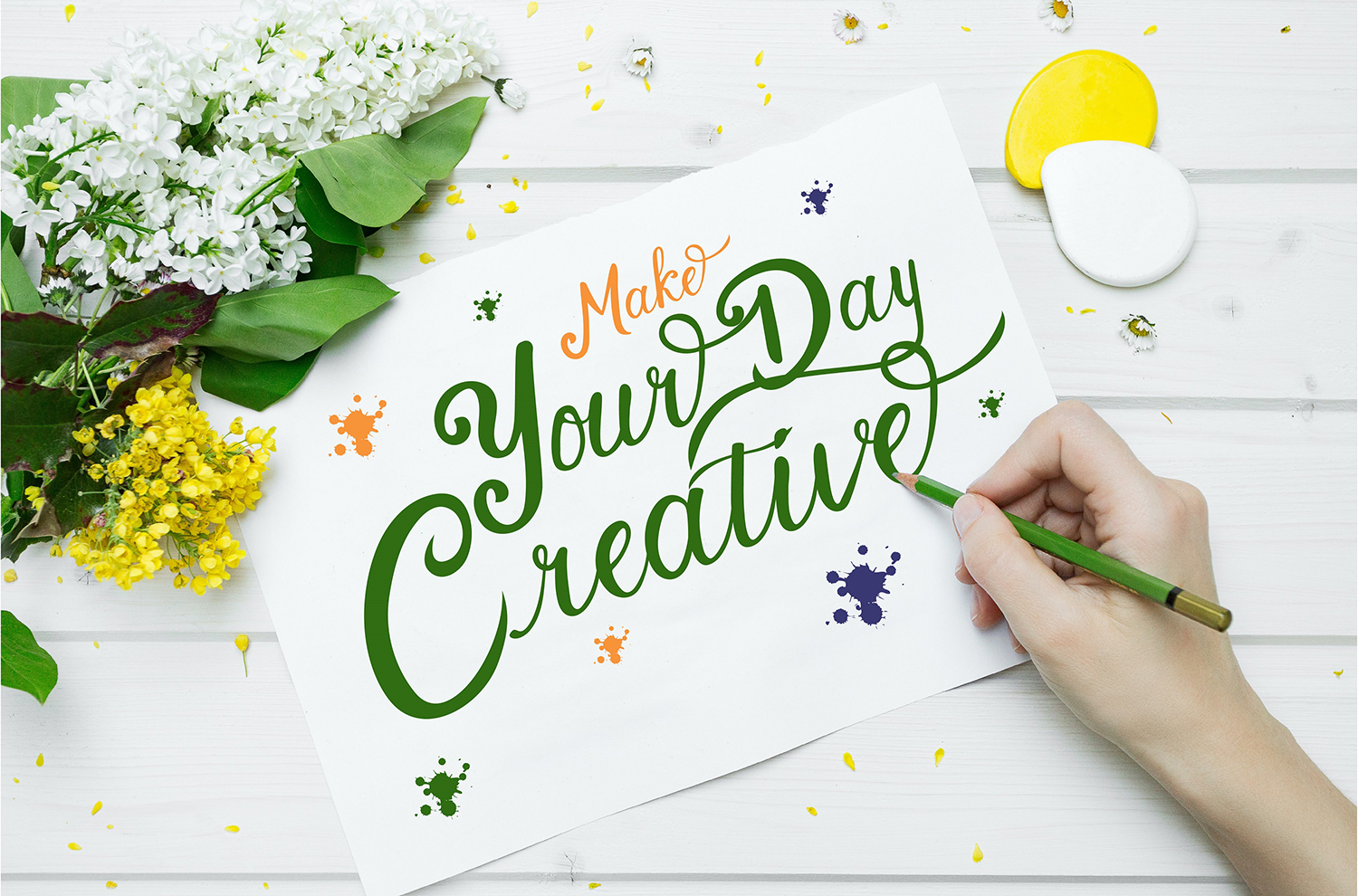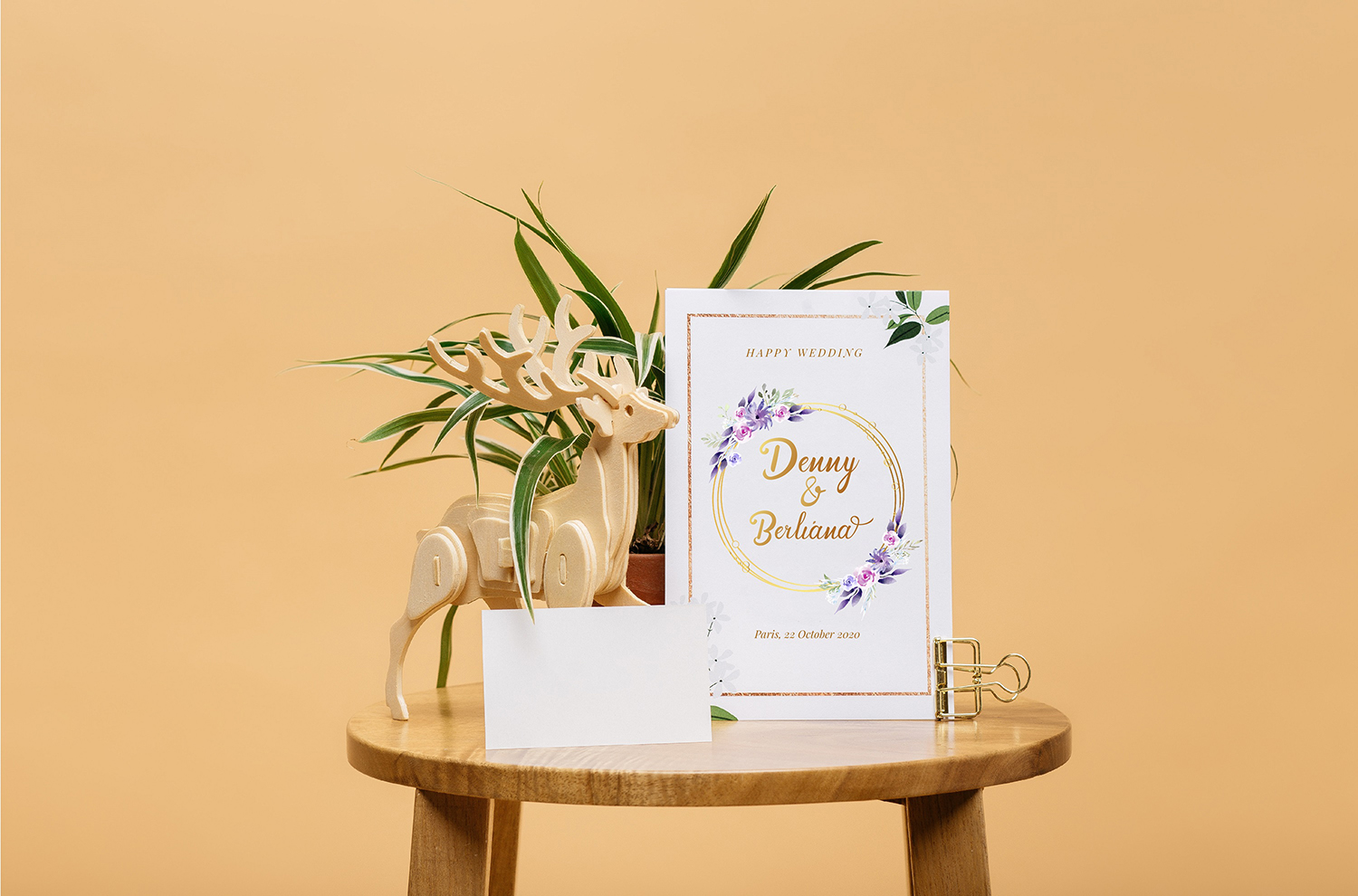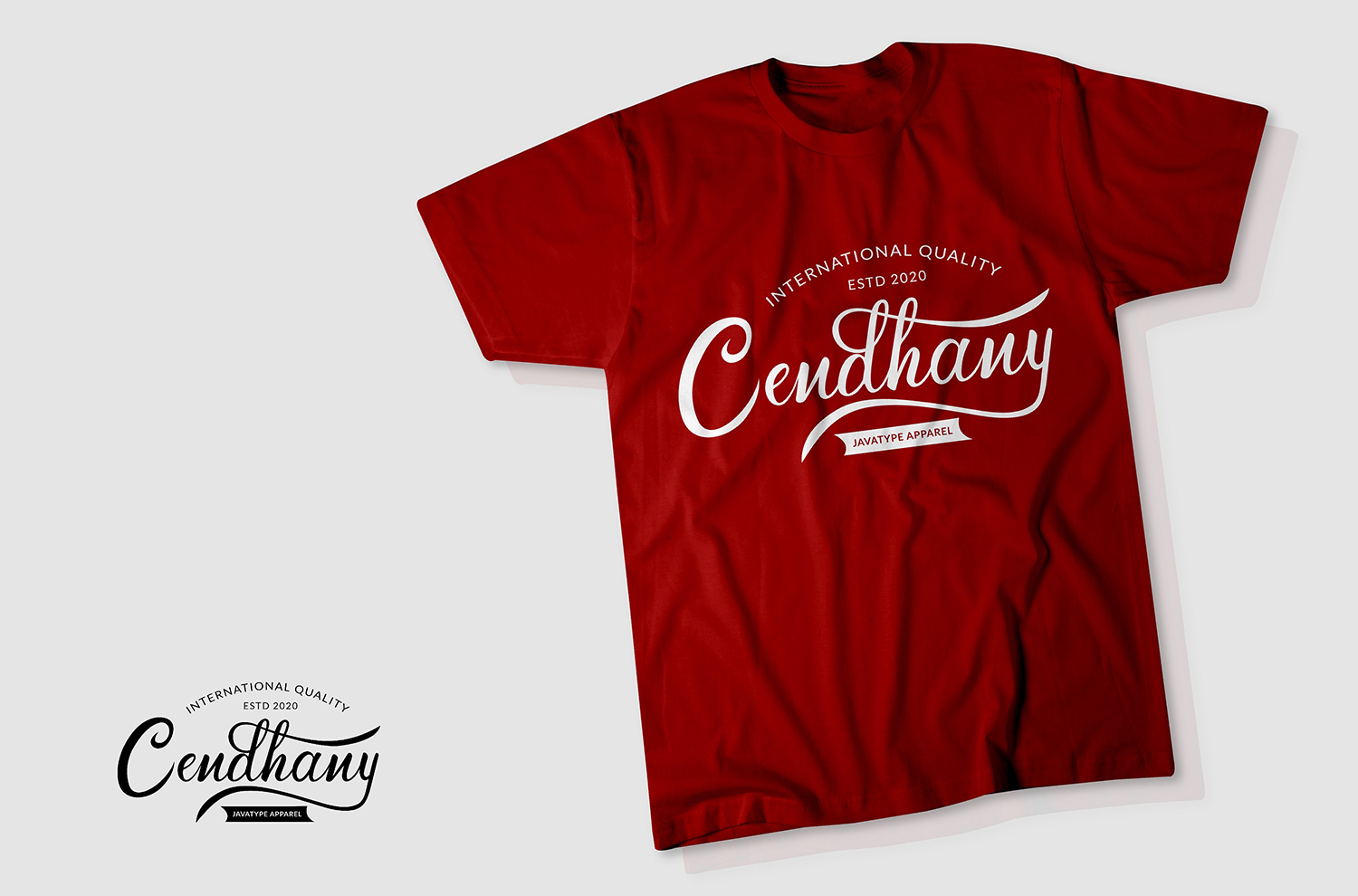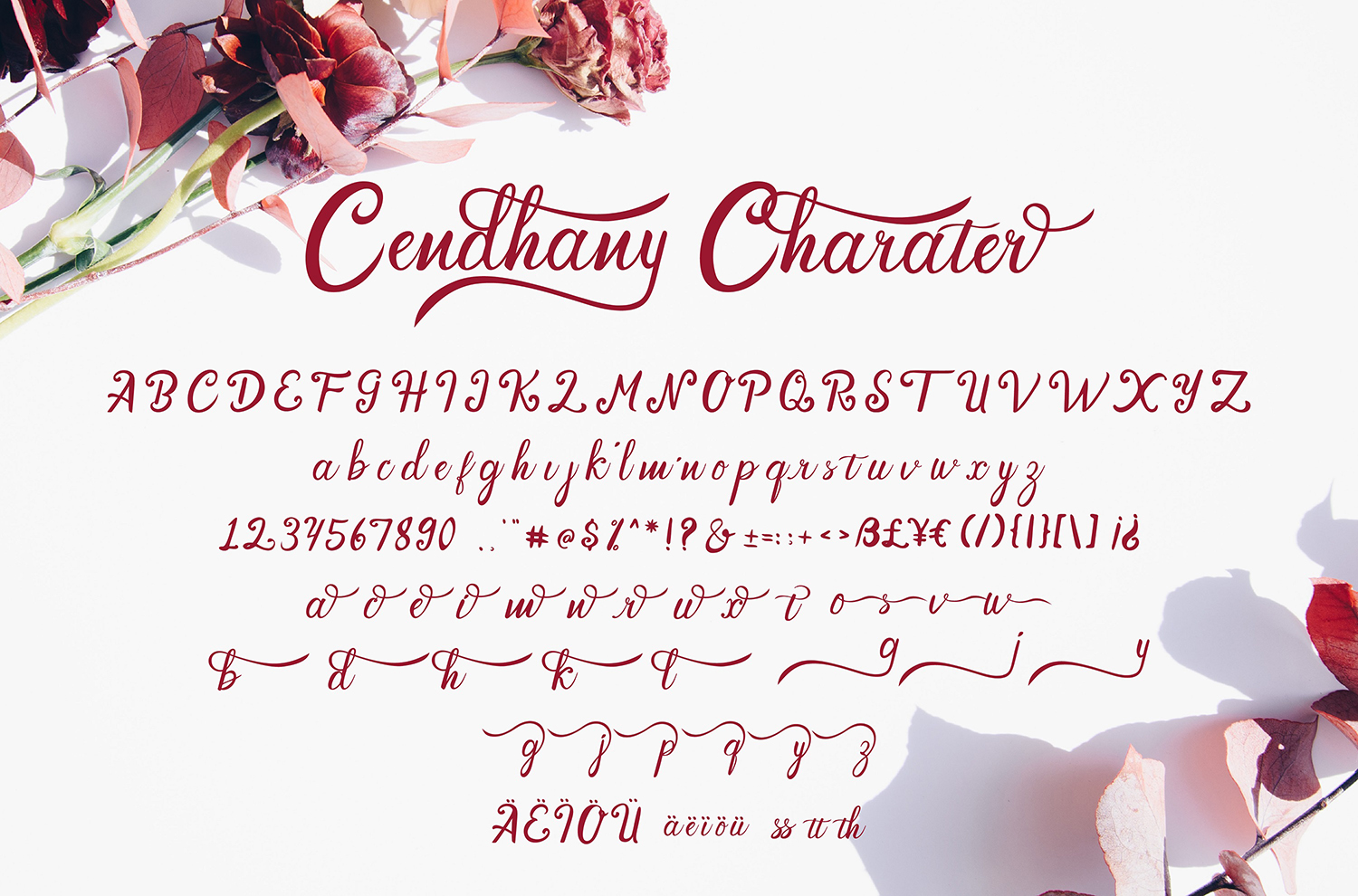
Cendhany Free Font
Cendhany Free Font is a scripted handwritten font that mimics writing with a brush and features a calligraphic style. This font is well suited for a variety of modern design projects. You can use this font to create memorable posters, wedding invitations, cards, branding, flyers, and more. Improve the quality and increase the popularity of your design projects using this font. If you like it don’t forget to check out the full version.